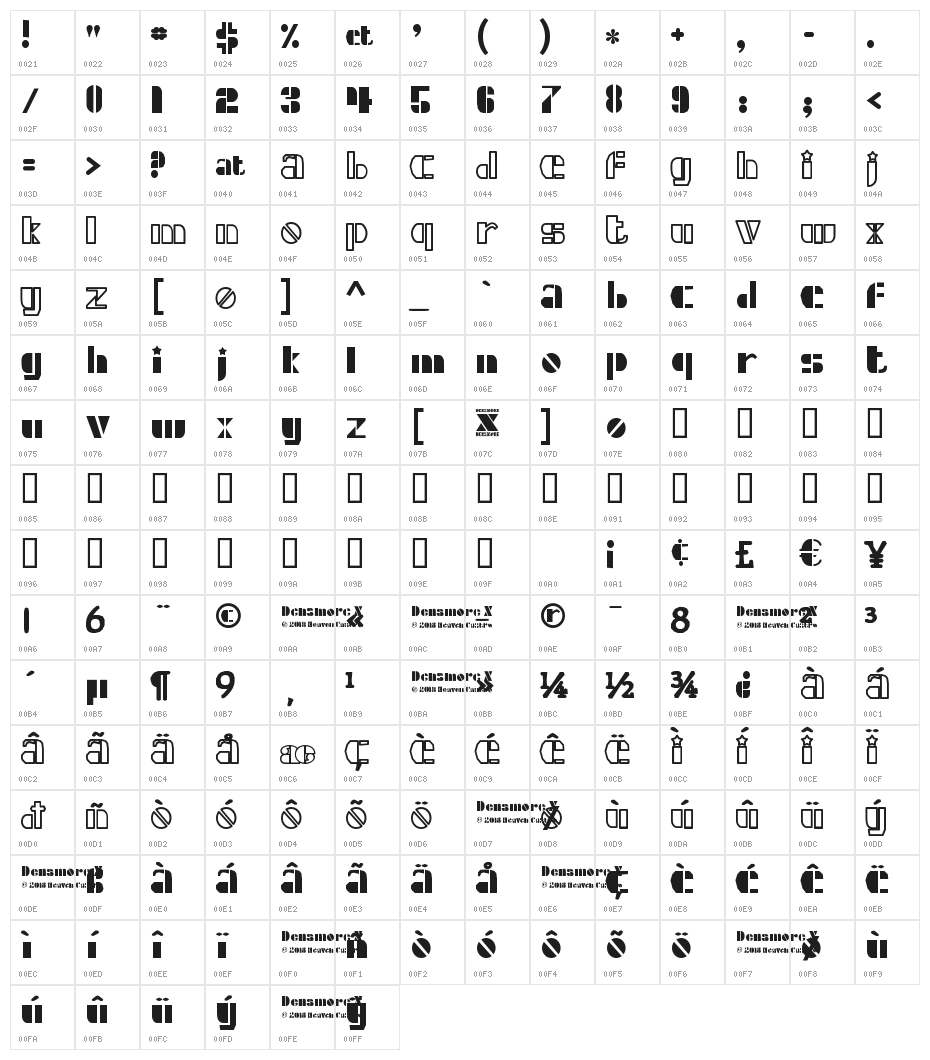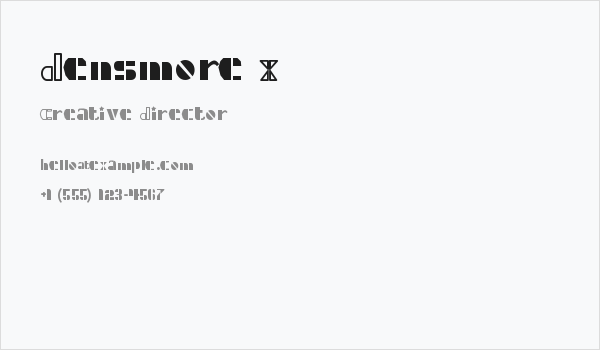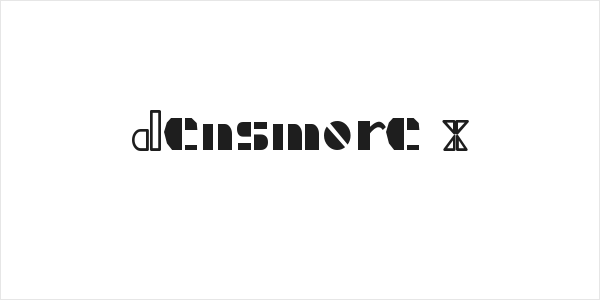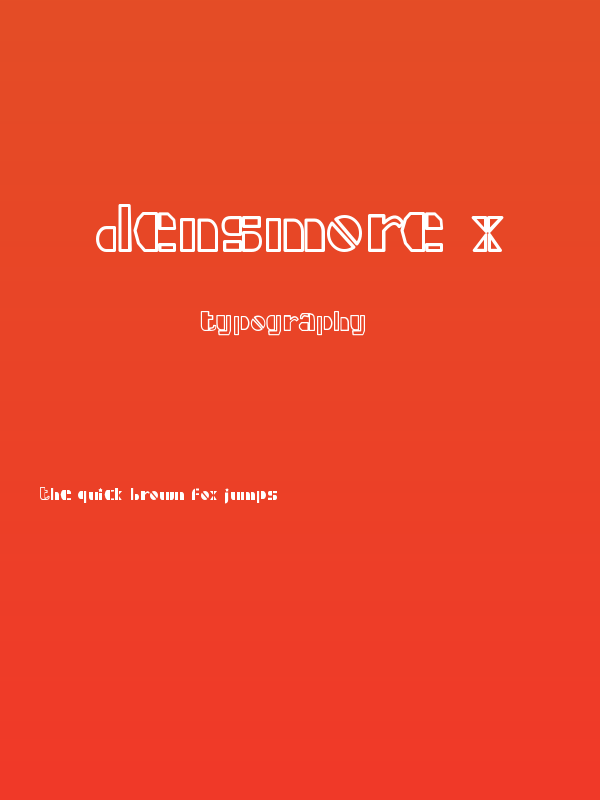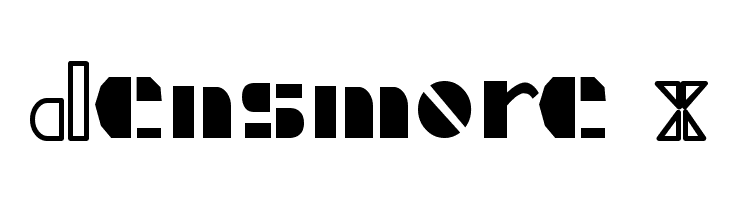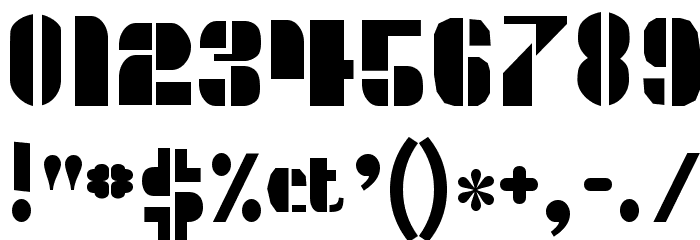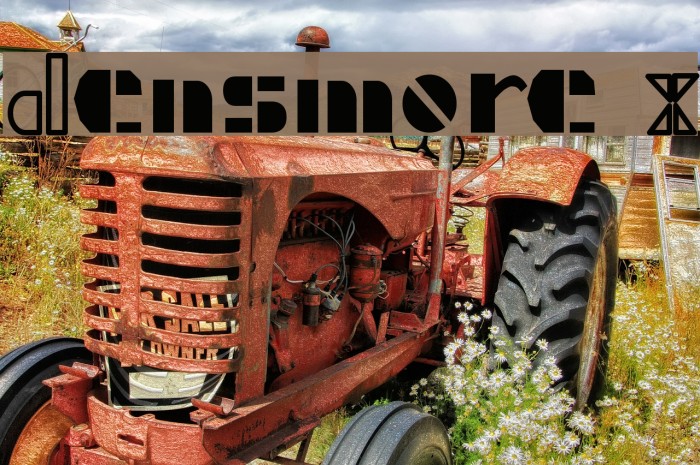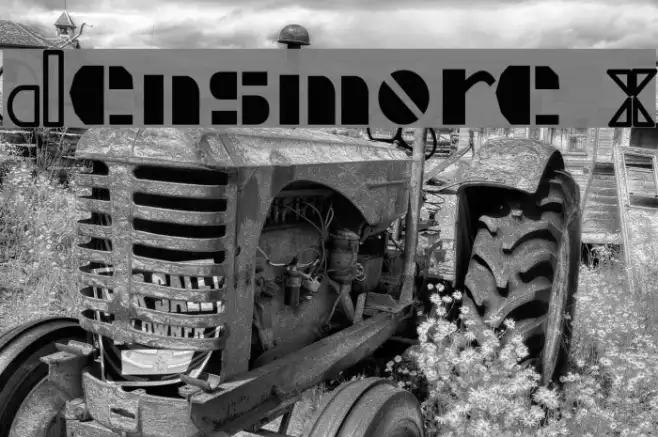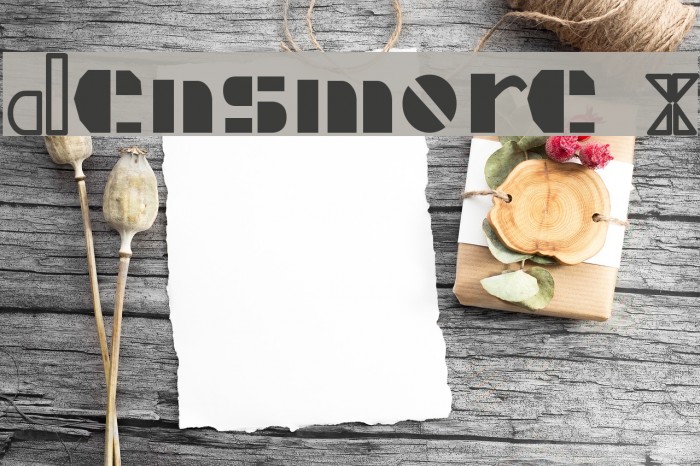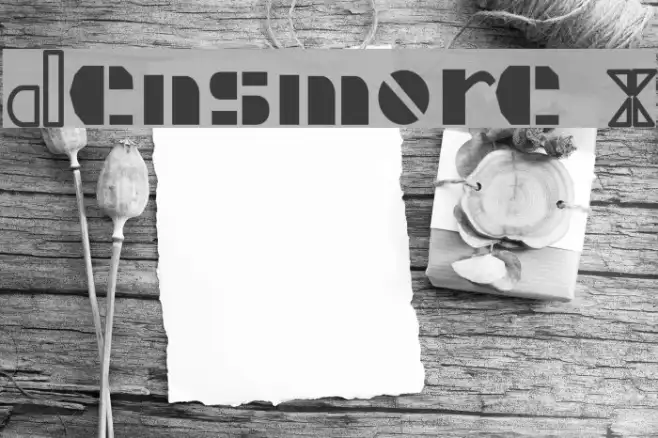
Densmore X Font
Densmore X Description
This font features a bold, geometric design with a modern and edgy aesthetic. The characters are constructed with thick, blocky shapes that create a strong visual impact. The uppercase and lowercase letters maintain a consistent style, with angular lines and sharp edges. The numbers and special characters follow the same design principles, ensuring a cohesive look across all elements. The font's unique style makes it stand out, with a futuristic and industrial feel that is both eye-catching and memorable.